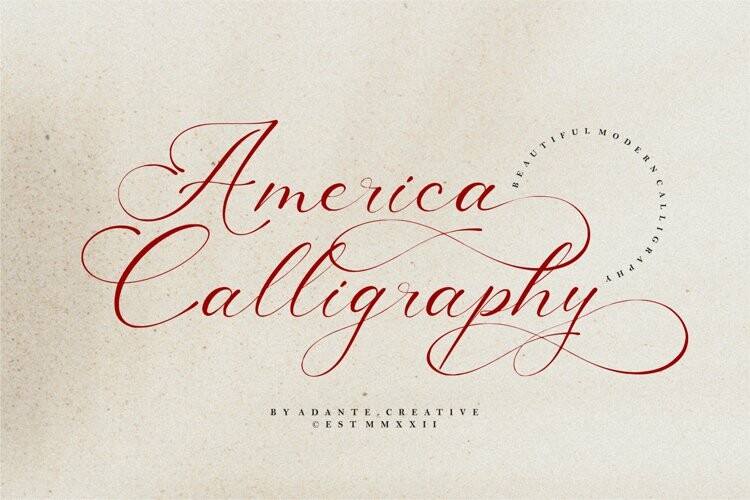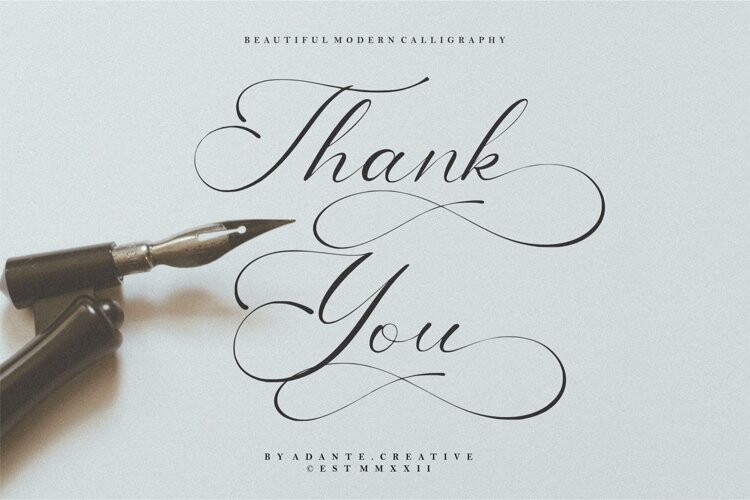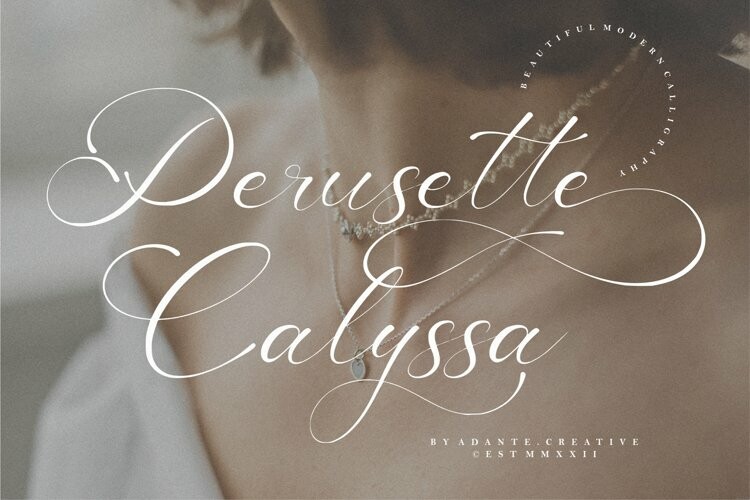
America Calligraphy Font
America Calligraphy FontAmerica Calligraphy A Beautiful Modern Calligraphy Font
America Calligraphy is perfect for product packaging, branding project, megazine, social media, wedding, or just used to express words above the background.